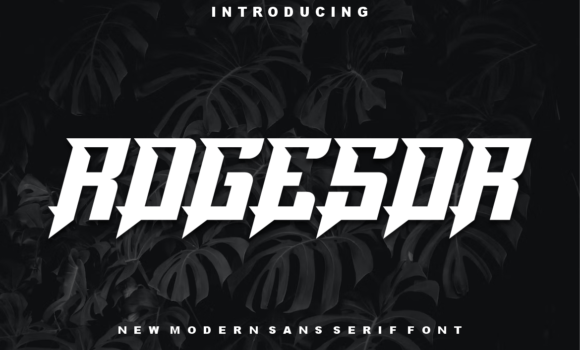
Rogesor Font – Free Download Introduction to Rogesor Font Rogesor is a display font with a touch of classic blackletter style. 📸 Preview Gallery 4 images 📌 Product Name Rogesor Font 👤 Author artchiles design 📂 Category Explore ⬇️ Download